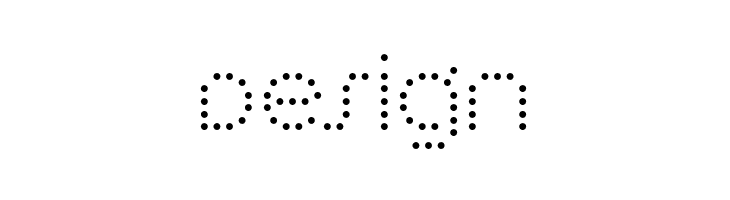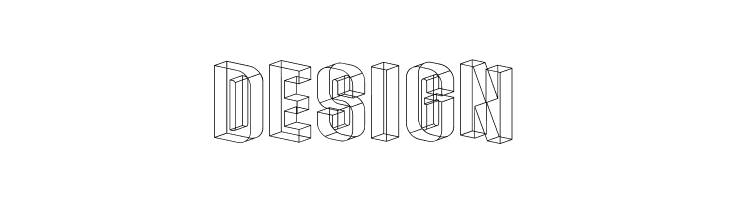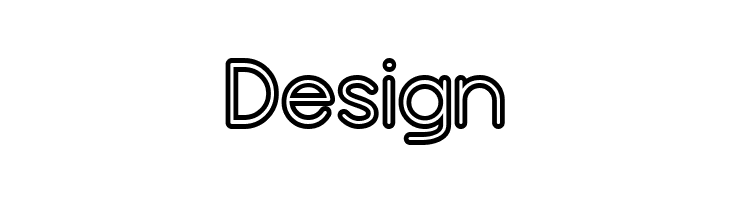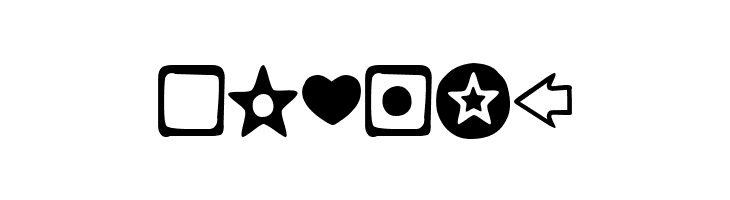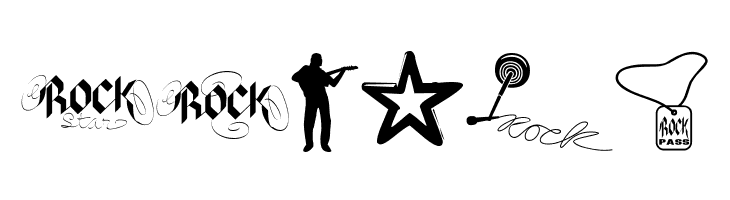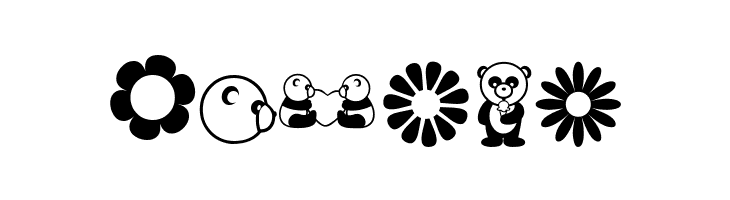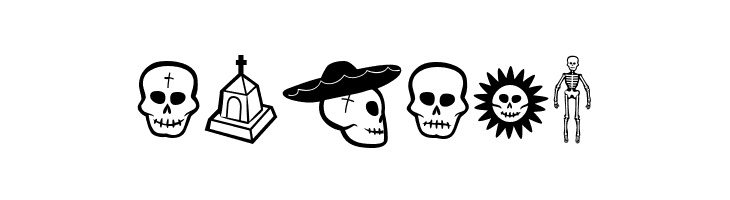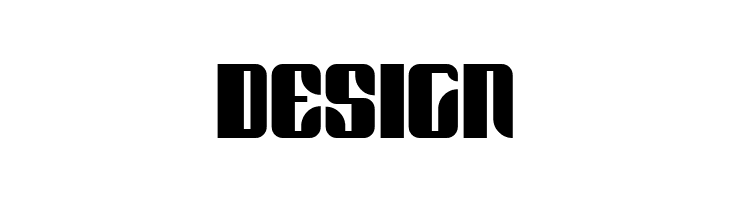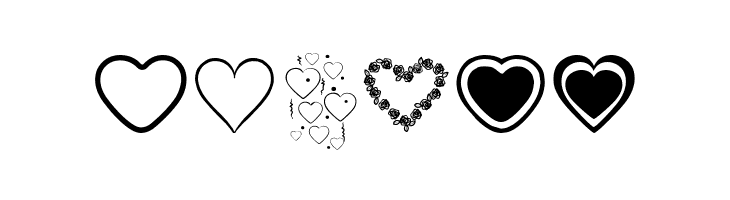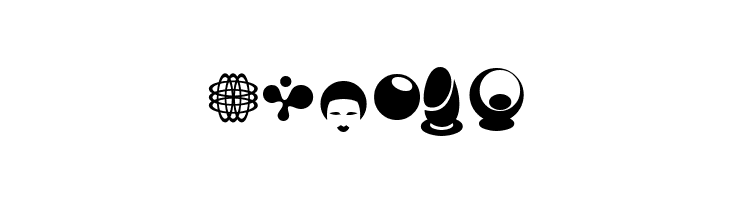
Print Dashed Font
Font by Blue Vinyl - Jess Latham - www.bvfonts.com
A playful dashed line font with a modern, informal style.
Print Bold Font
Font by Blue Vinyl - Jess Latham - www.bvfonts.com
A bold, rounded font with a clean and approachable design.
Learning Curve Font
Font by Blue Vinyl - Jess Latham - www.bvfonts.com
A graceful script font with fluid, connected strokes and elegant curves.
Pocket Calculator Font
Font by Blue Vinyl - Jess Latham - www.bvfonts.com
A digital-style, geometric font inspired by classic calculator displays.
Blue Melody Font
Font by Blue Vinyl - Jess Latham - www.bvfonts.com
A modern, high-contrast font with elegant, elongated letterforms.
Dance Craze BV Font
A playful, bold font with a hand-drawn, energetic style.
Spin Cycle Font
Font by Blue Vinyl - Jess Latham - www.bvfonts.com
Hot Rod Gang BV Font
Font by Blue Vinyl - Jess Latham - www.bvfonts.com
A bold, slanted font with a dynamic and energetic style.
Rock Star Font
Font by Blue Vinyl - Jess Latham - www.bvfonts.com
A collection of music-themed icons in a clean, modern line art style.
Disko Font
Font by Blue Vinyl - Jess Latham - www.bvfonts.com
A bold, playful font with rounded, outlined characters and a cartoon-like style.
LearningCurvePro Font
Font by Blue Vinyl - Jess Latham - www.bvfonts.com
A cursive, handwritten font with elegant, flowing lines.
All Star BV Font
Font by Blue Vinyl - Jess Latham - www.bvfonts.com
A bold, geometric font with strong, uniform strokes and a commanding presence.
Print Clearly Font
Font by Blue Vinyl - Jess Latham - www.bvfonts.com
A clean, minimalist font with thin, uniform strokes and geometric shapes.
One Trick Pony Font
Font by Blue Vinyl - Jess Latham - www.bvfonts.com
A playful, bold font with rounded edges and a bubbly appearance.
Learning Curve Dashed Font
Font by Blue Vinyl - Jess Latham - www.bvfonts.com
A dotted, cursive-style font ideal for educational purposes.
Crushed Out Girl Sharpie Font
Font by Blue Vinyl - Jess Latham - www.bvfonts.com
A playful, bold handwritten font with rounded, whimsical characters.
Sweet Hearts BV Font
Font by Blue Vinyl - Jess Latham - www.bvfonts.com
A decorative font with characters enclosed in heart shapes, perfect for romantic or playful designs.
60s Chic Font
Font by Blue Vinyl - Jess Latham - www.bvfonts.com
A retro collection of bold, geometric shapes and playful motifs inspired by 1960s design.
My Bleeding Scars Font